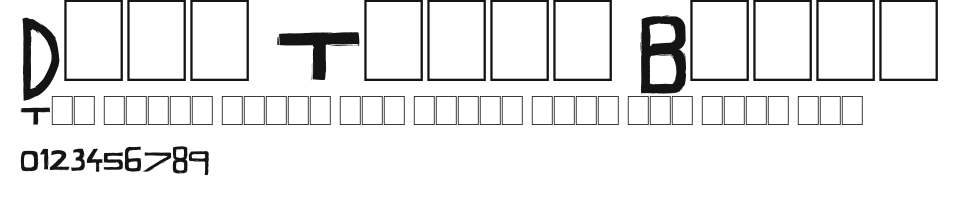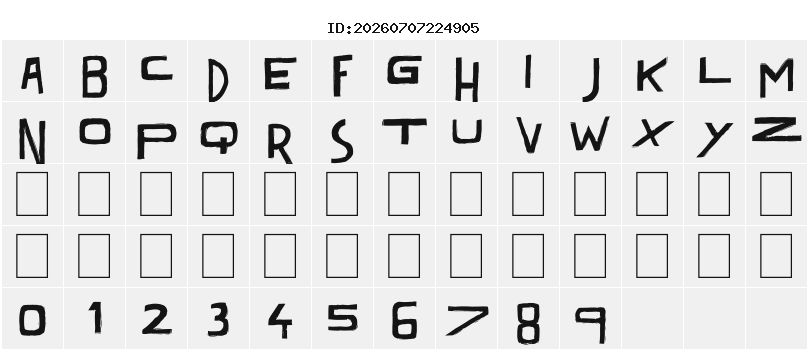
Dark Times Black Preview
• Font Name: Dark Times Black
• Font ID: Dark Times Black:Version 1.00
• Full Font Name: Dark Times Black
• Version: Version 1.00 May 20, 2015, initial release
• PostScript Name: DarkTimesBlack
• Character Count: 43
• Designer: Imagex
About Dark Times Black.ttf
Dark Times Black.ttf is a modern, elegant sans-serif font designed for ultimate readability and visual harmony. Perfect for branding, headlines, web design, and print materials.